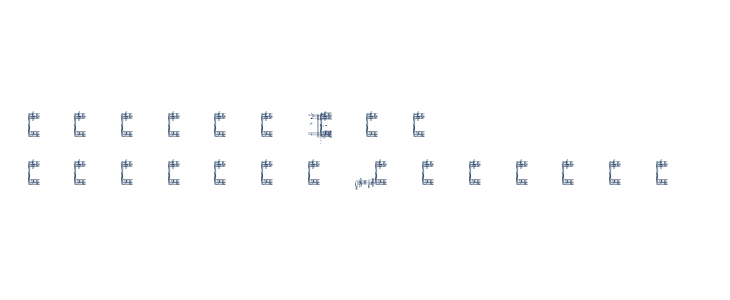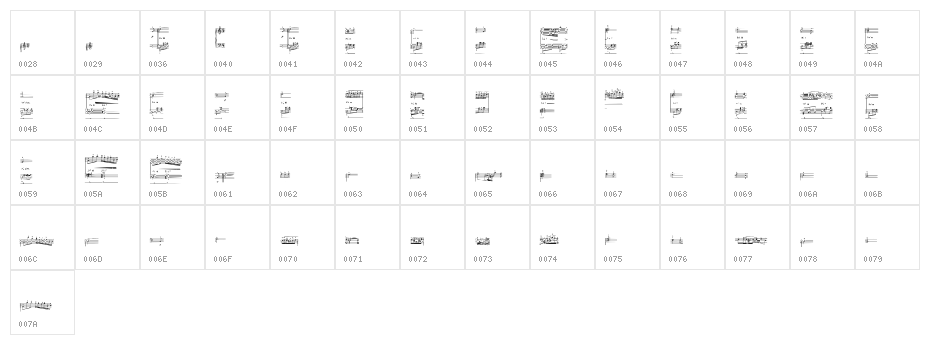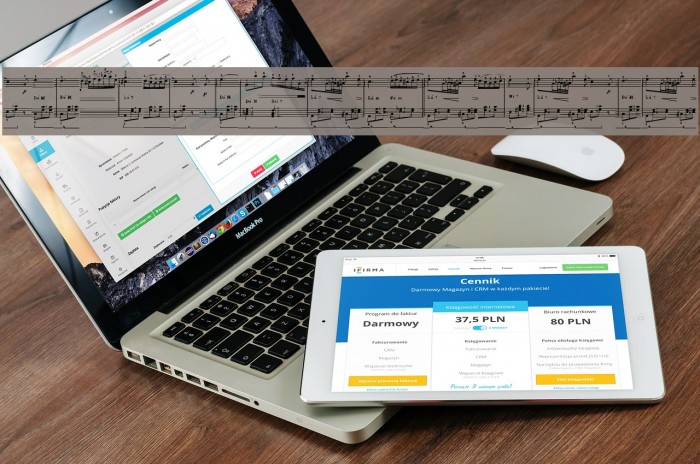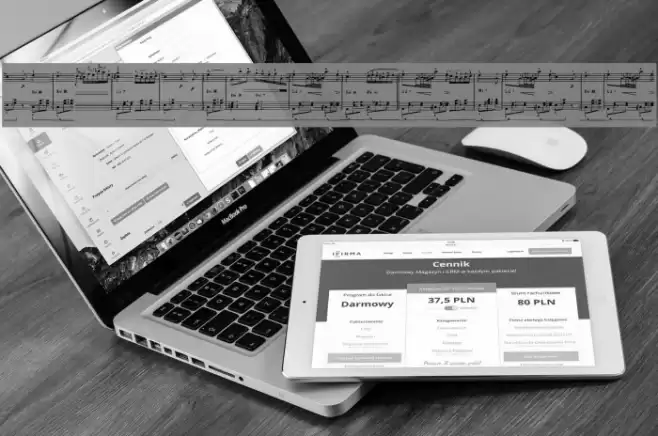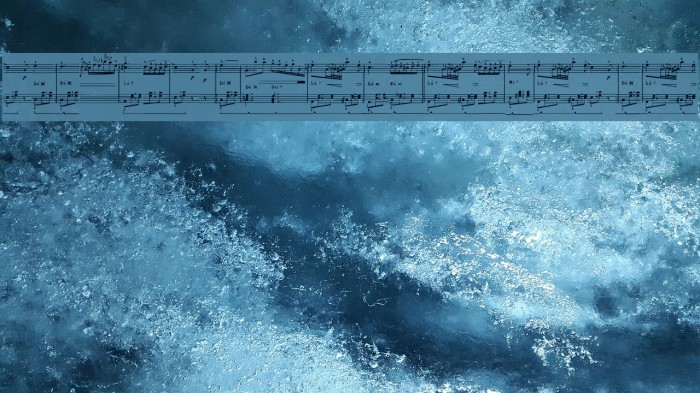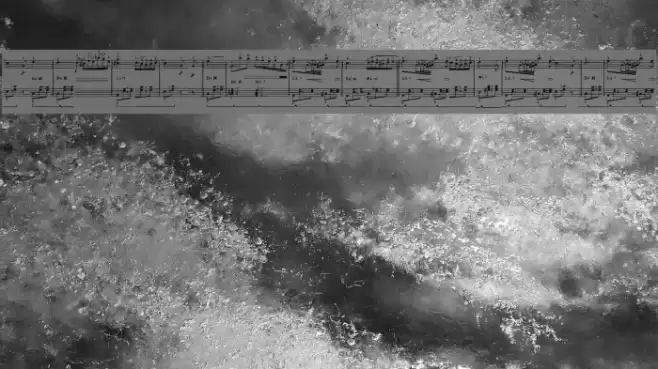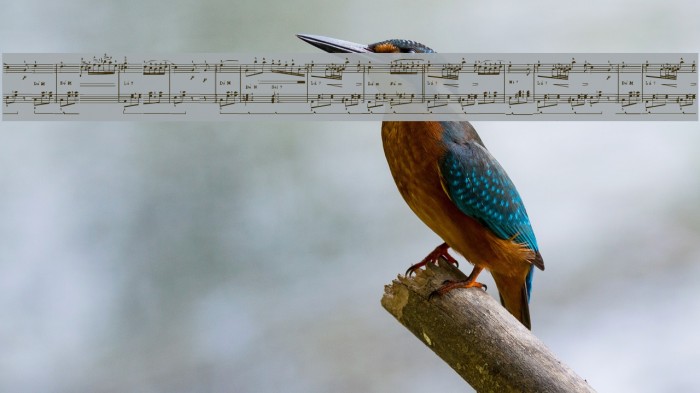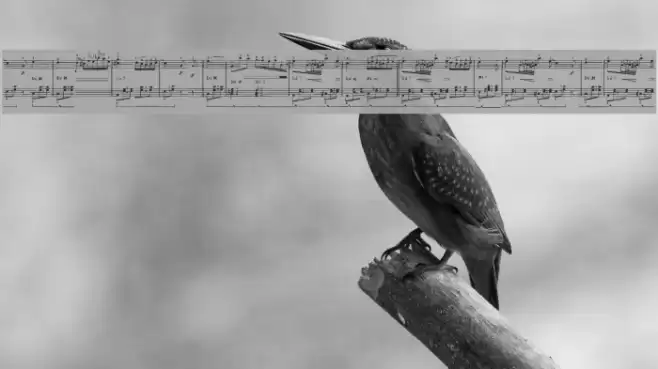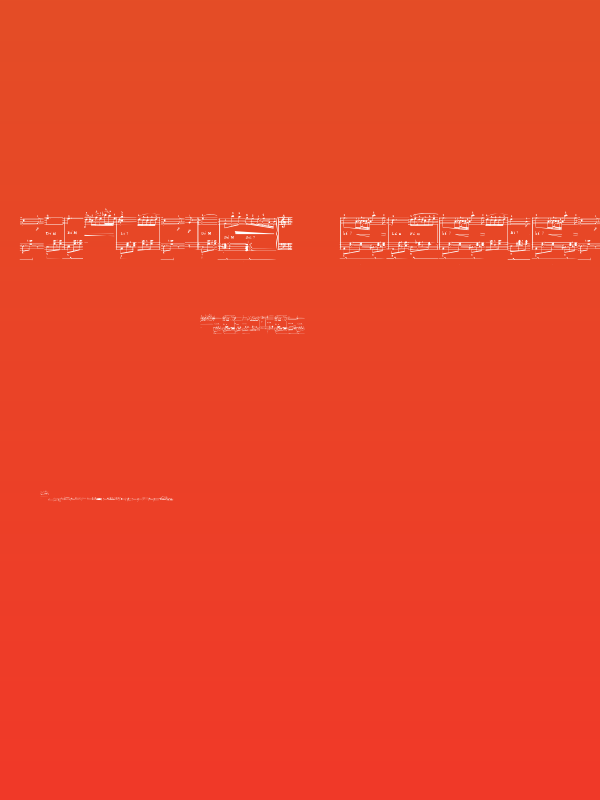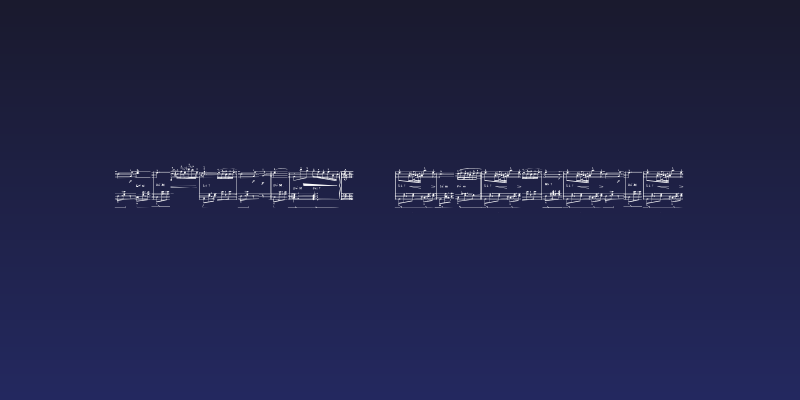
NOCTURNAL-EXPERIENCE Font
NOCTURNAL-EXPERIENCE Description
A traditional music notation font featuring clear, legible noteheads, accidentals, and musical symbols. The glyphs are monolinear with consistent stroke thickness, designed for optimal readability in sheet music.
| Use Case | Sheet music, music notation, educational materials. |
| Proposed Projects | Sheet music engraving, music textbooks, educational materials, digital music notation software. |